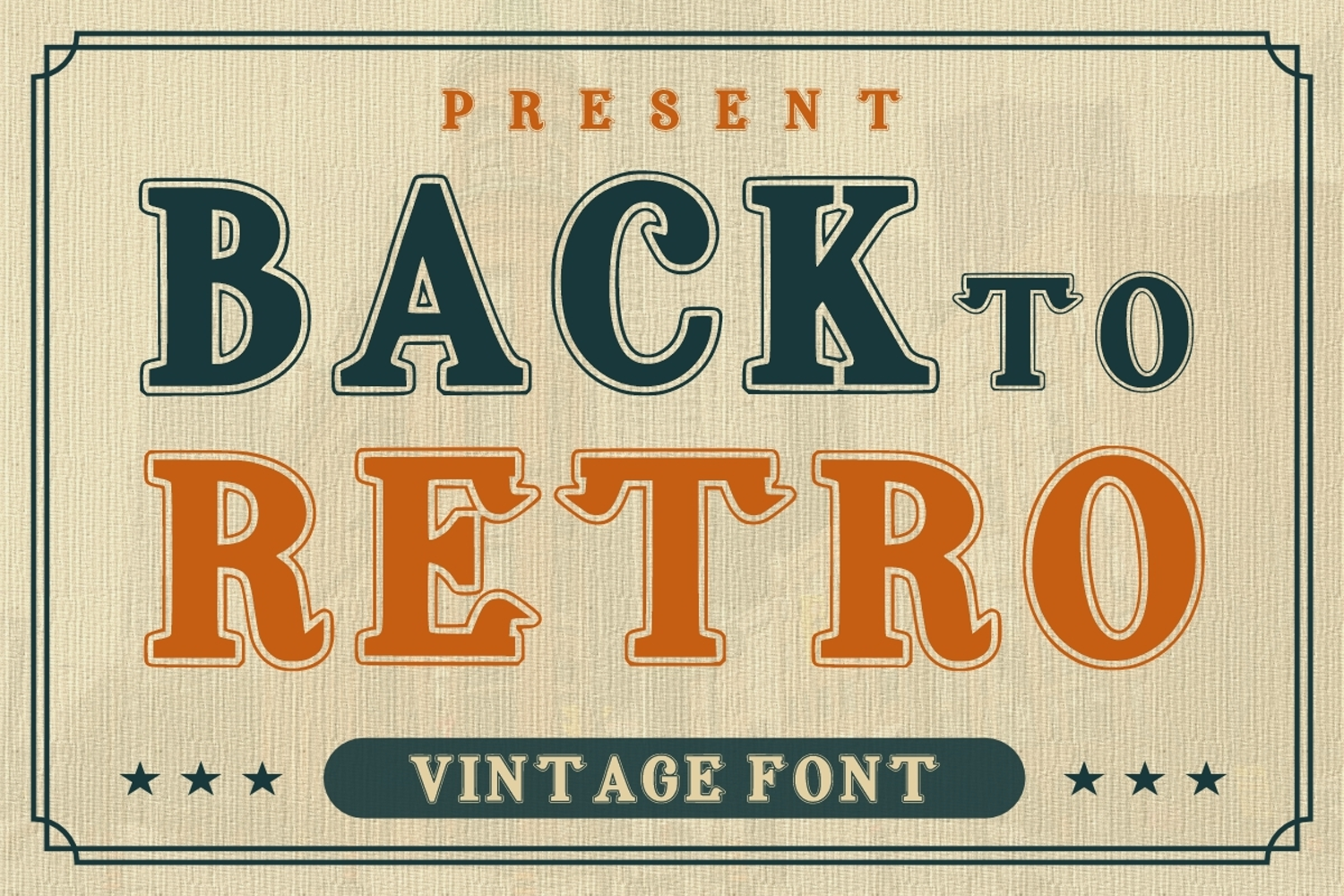
Back to Retro
Back to Retro is a classic vintage font, a bold, easy-to-read display font that conveys impeccable friendliness. Whether you’re using it for crafts, digital design, presentations, or greeting cards, this font has the potential to become your favorite go-to font, no matter the occasion!
Back to Retro